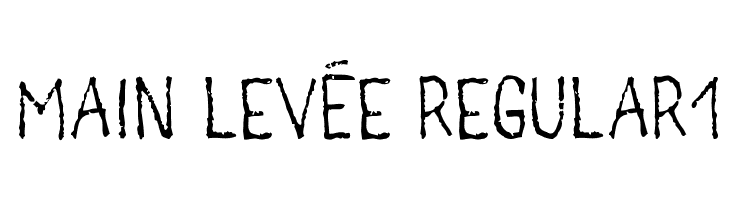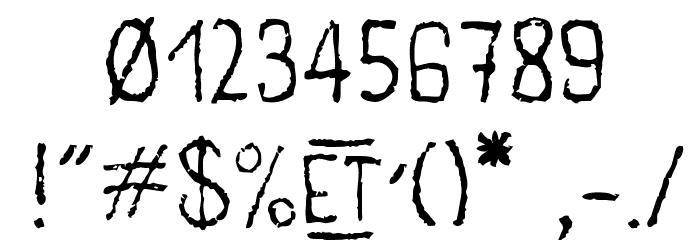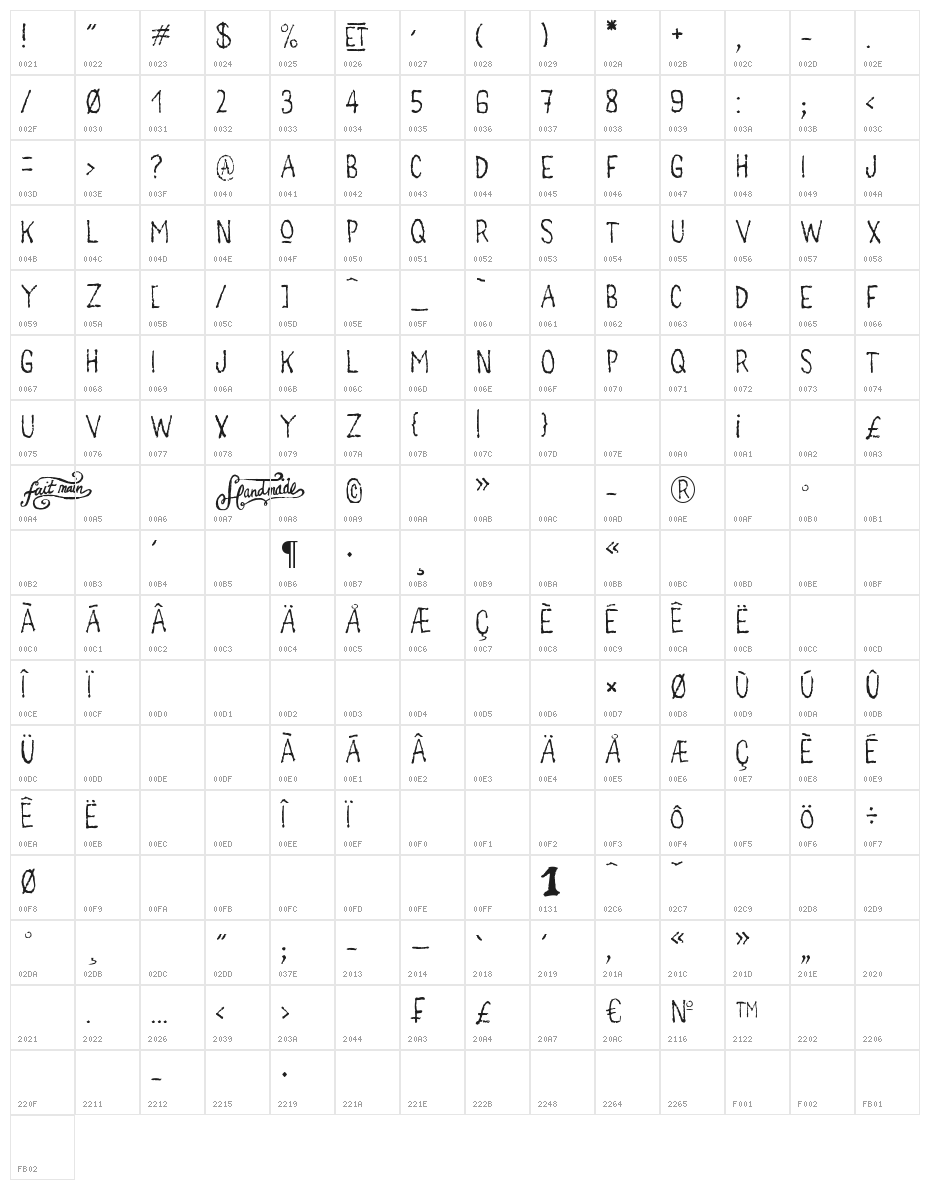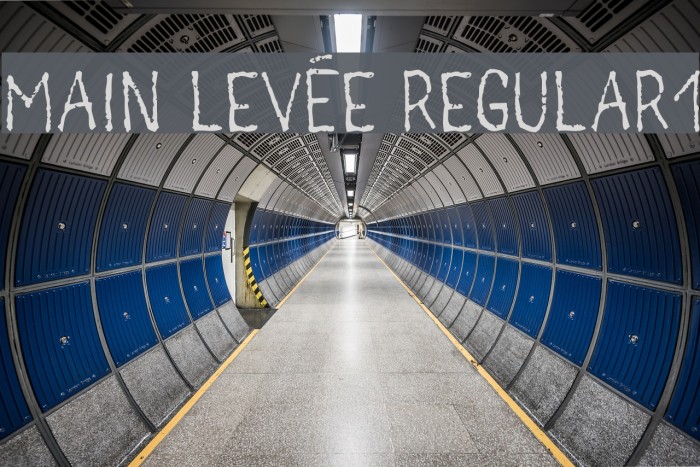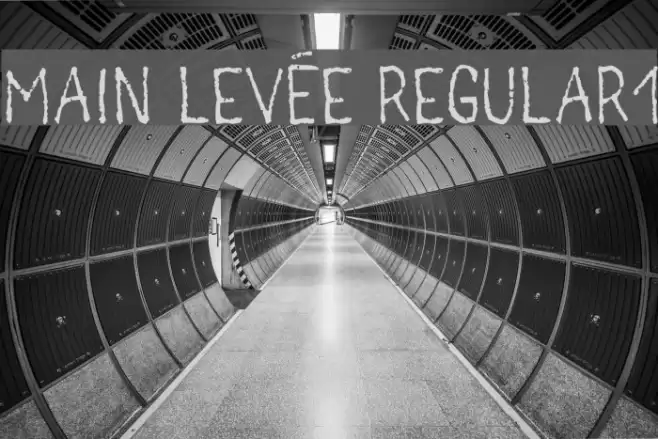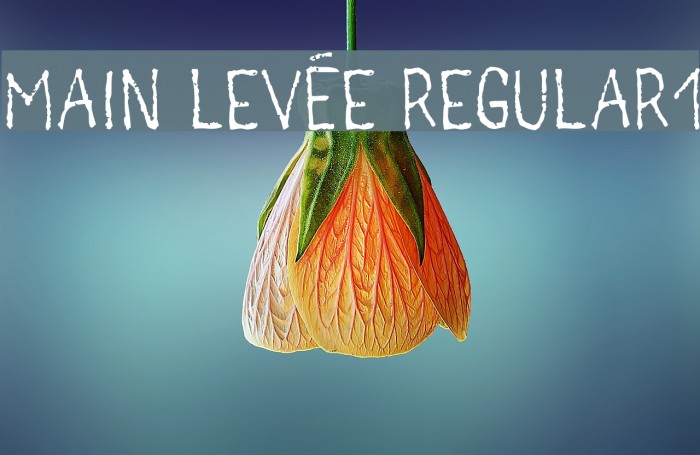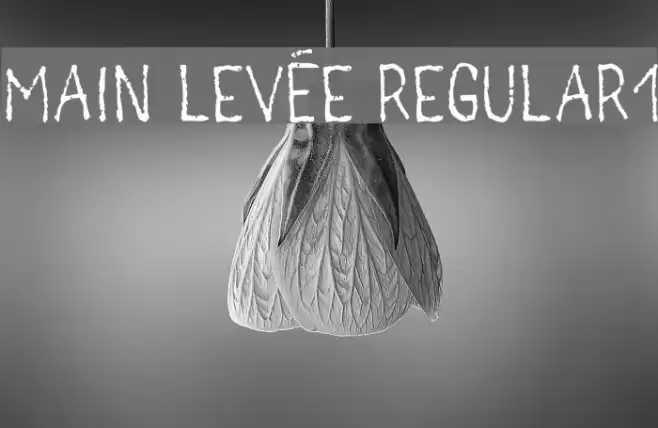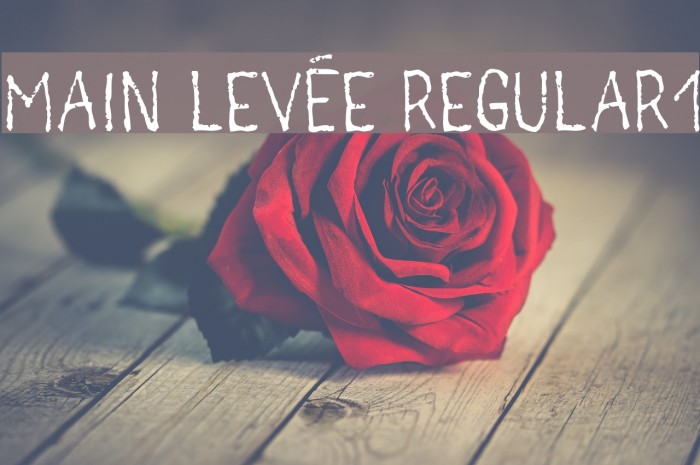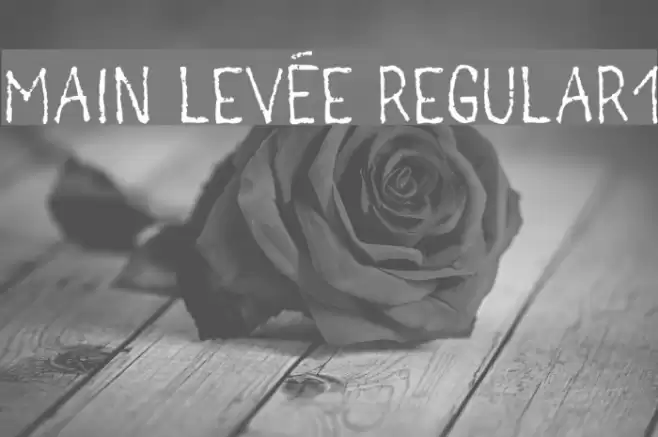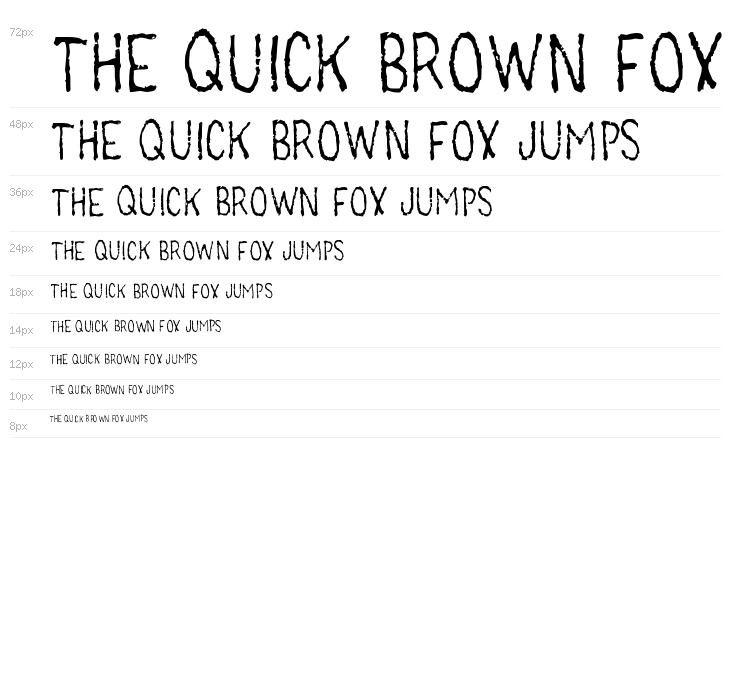
main levée regular1 Font
main levée regular1 Description
This font features a rugged, hand-drawn appearance with irregular strokes and a textured finish. The characters are bold and slightly uneven, giving them a distinctive, organic feel. The uppercase and lowercase letters maintain a consistent style, with a playful yet edgy look. Numbers and special characters follow the same aesthetic, adding to the font's cohesive design. The overall effect is reminiscent of a chalkboard or graffiti style, making it stand out with its unique personality.
| Proposed Projects | Ideal for projects that require a bold, artistic touch, such as posters, album covers, or creative branding materials. |